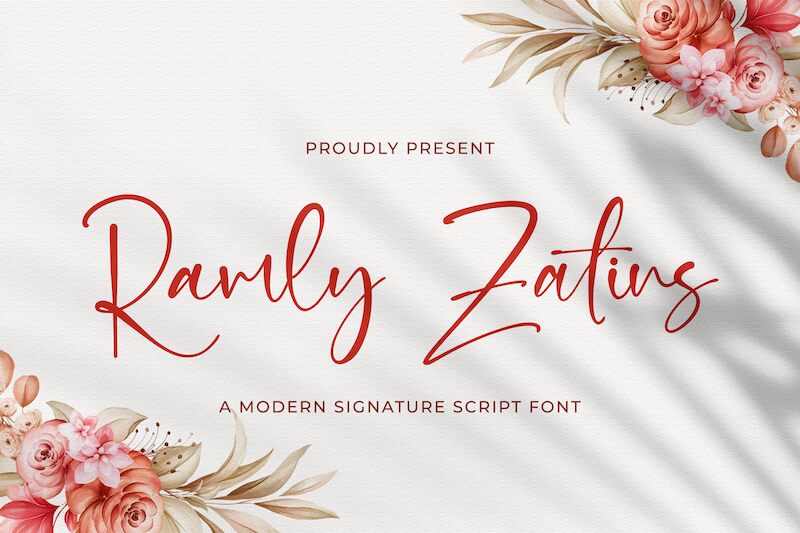
Ramly Zatins
Ramly Zatins font is a free handwritten font designed by StringLabs Creative Studio. Elegant and flowing, this modern typeface captures a personalized feel with an expressive overall appearance. Its smooth lines and balanced structure contribute to a uniform flow in reading without ignoring the beauty of each letter.